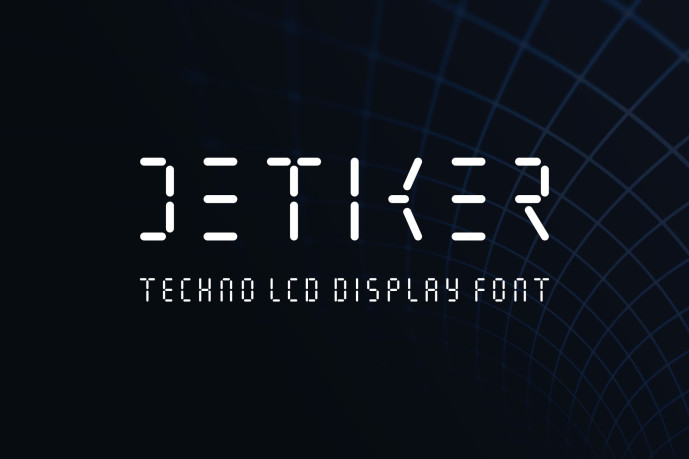
Detiker – Techno Lcd Display Font
Designer: ryomiscie
Detiker – Techno Lcd Display Font is a bold and authentic display font. The font is suitable for any branding project like logo, esport, and many more. outstanding in a wide range of contexts.